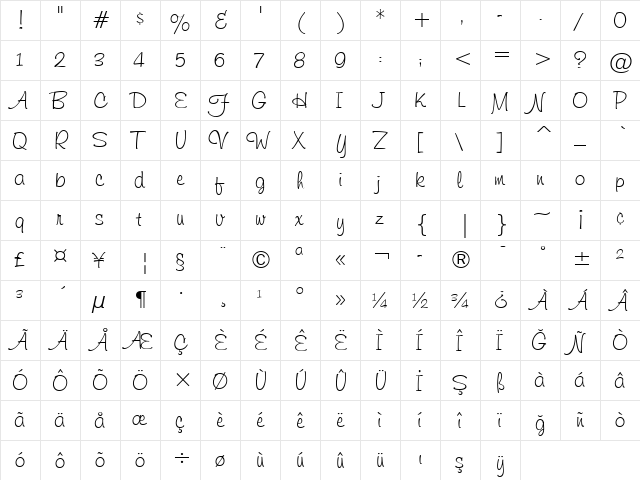
TR Freehand591 Regular
Design Context for TR Freehand591 Typeface
TR Freehand591 brings a calligraphic fluidity to the page — its connecting strokes and expressive curves give it an unmistakably human quality.
Font Pairing: Combine TR Freehand591 with a simple geometric sans for maximum contrast — the tension between flowing curves and clean structure is a classic typographic pairing.
Pro Tip: Use TR Freehand591 for short runs of text — names, titles, or taglines. Extended body copy in script faces tires the eye quickly.